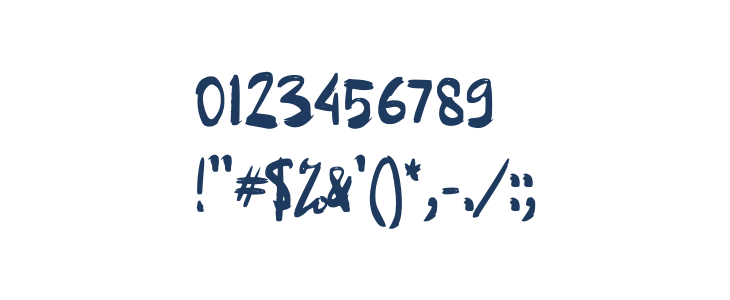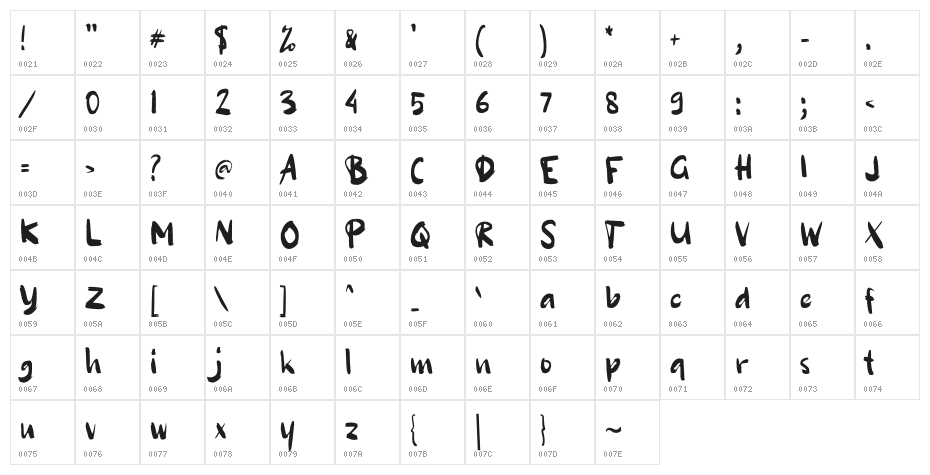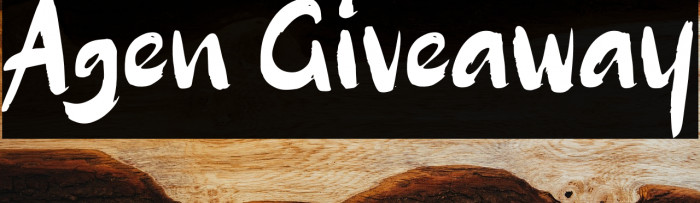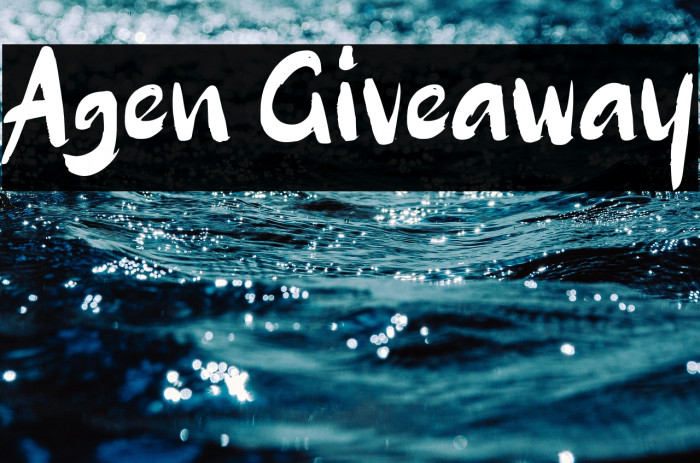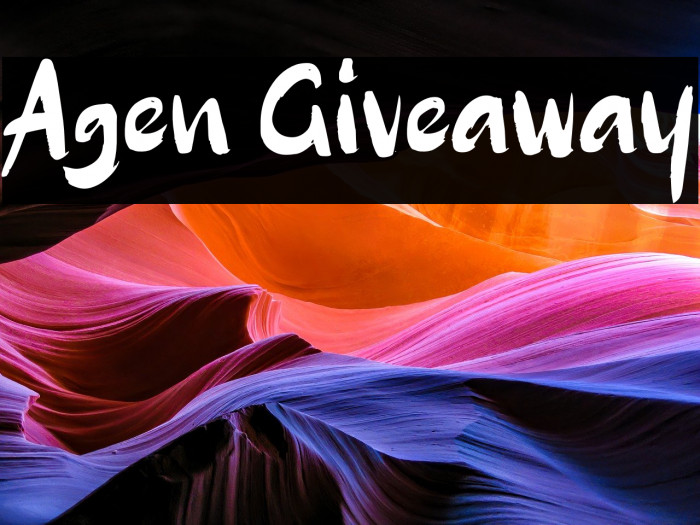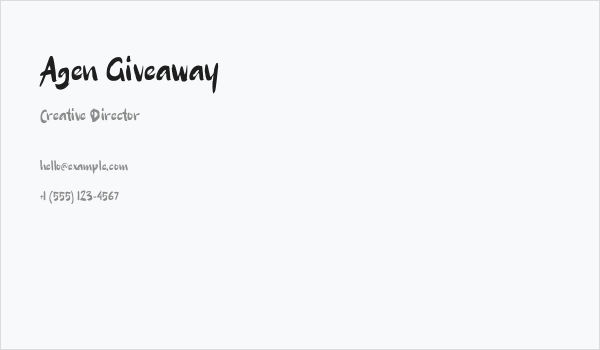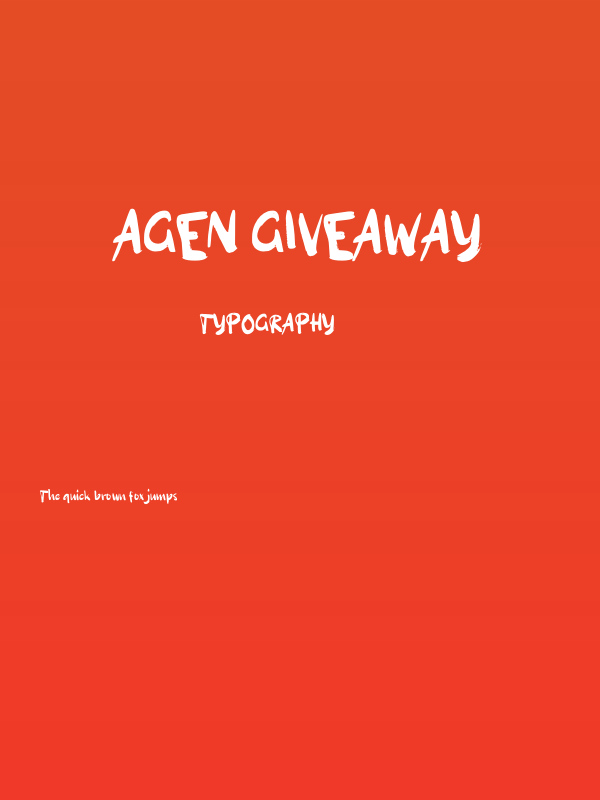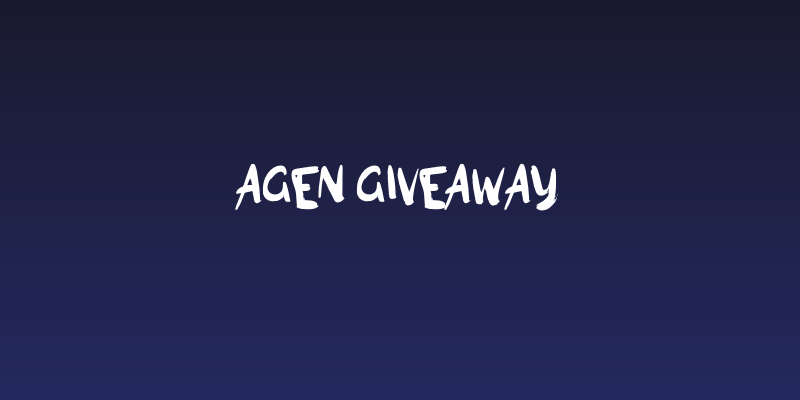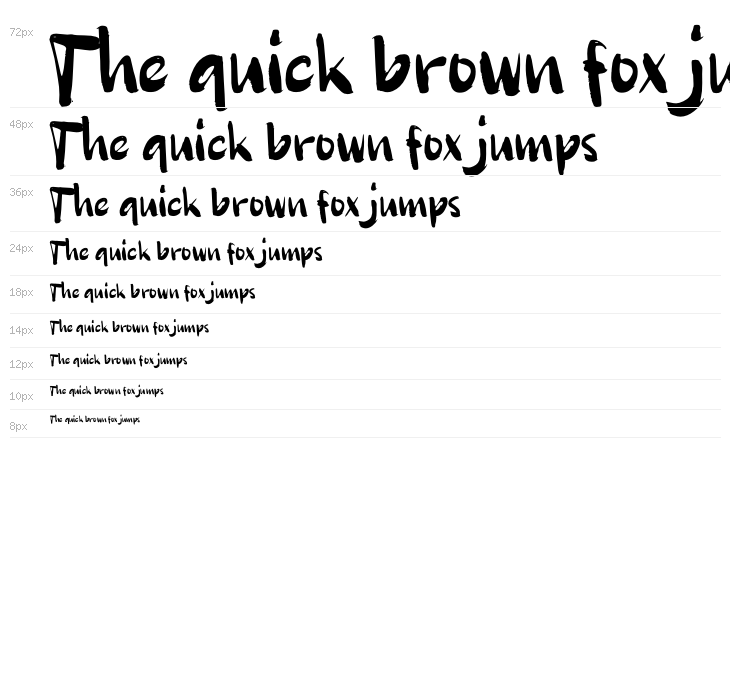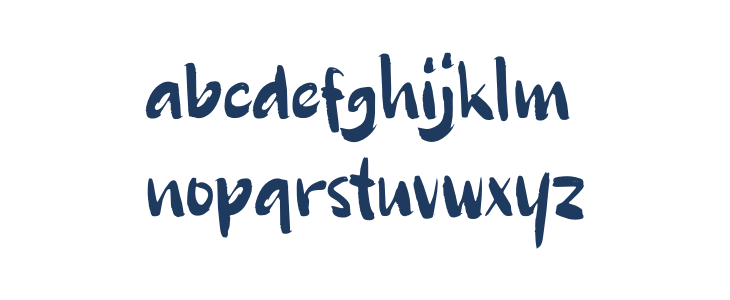
Agen Giveaway Font
Agen Giveaway Description
This font features a bold, expressive handwritten style with a dynamic and energetic appearance. The letters are slightly irregular, giving it a natural and authentic feel. The strokes are thick and varied, adding a sense of movement and personality. The uppercase and lowercase letters maintain a consistent style, while the numbers and special characters complement the overall design. This font is perfect for projects that require a personal touch or a creative flair.
Proposed ProjectsIdeal for branding, posters, invitations, and creative projects that need a personal touch.